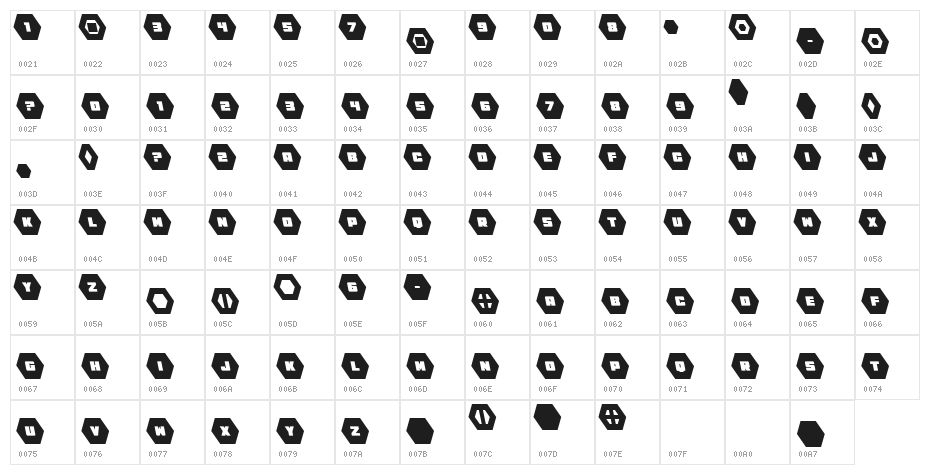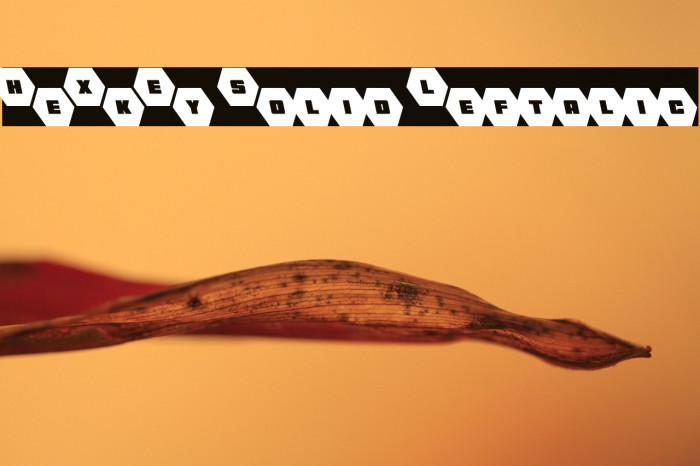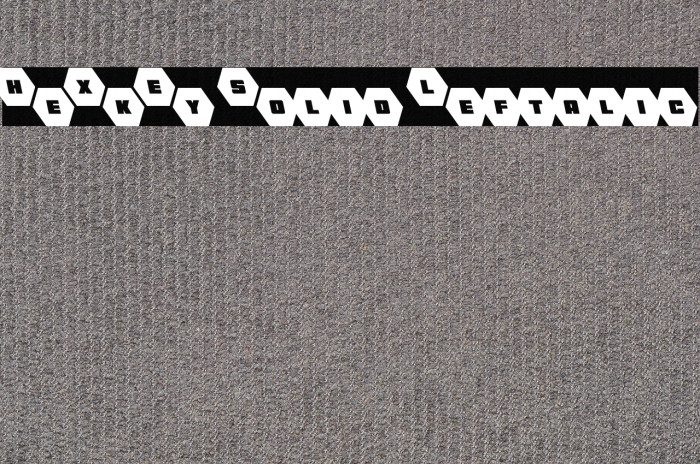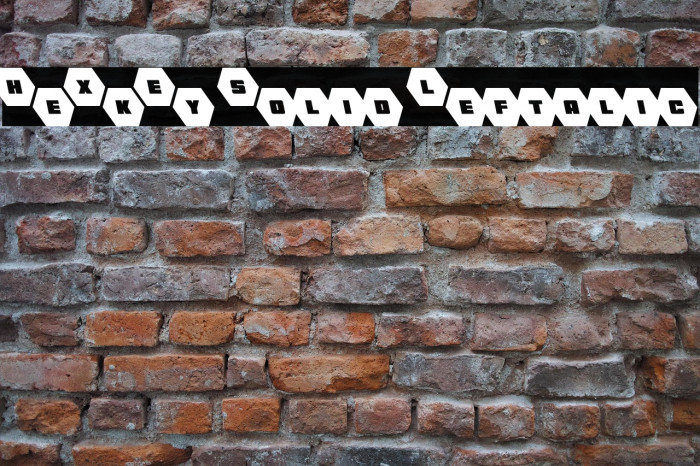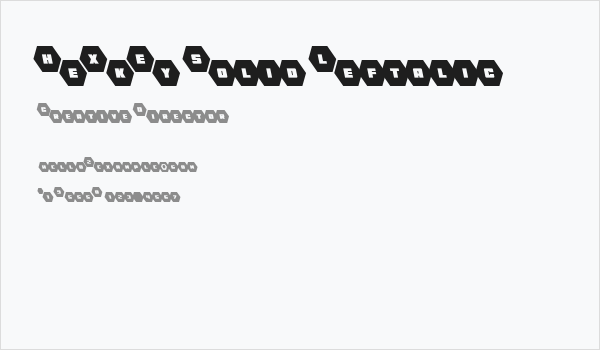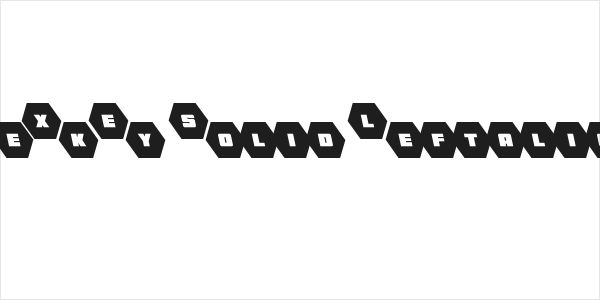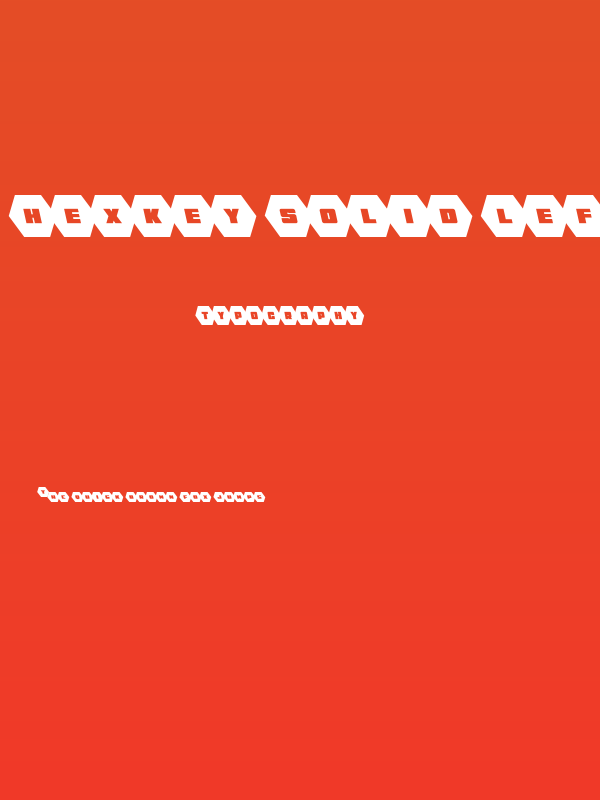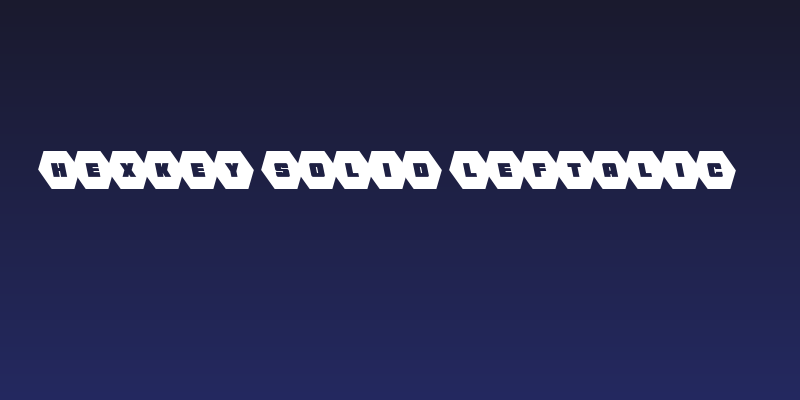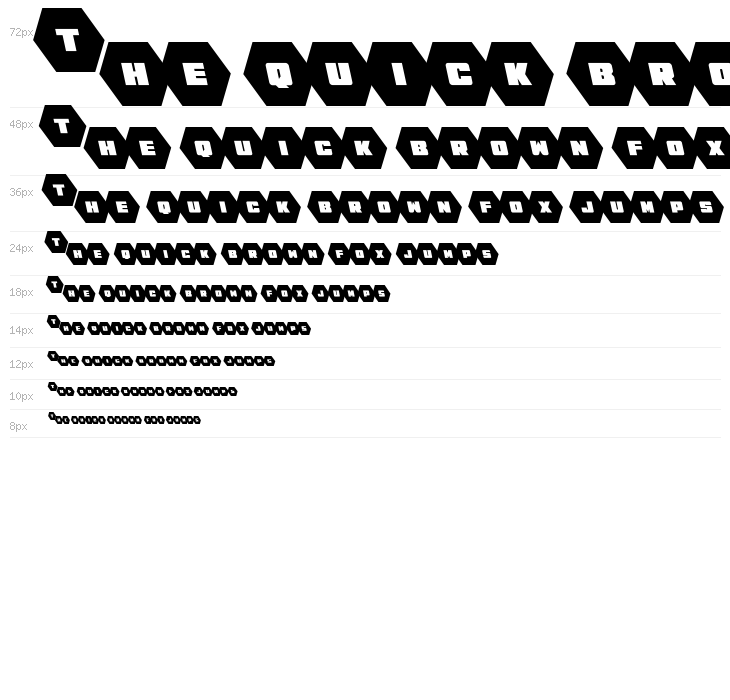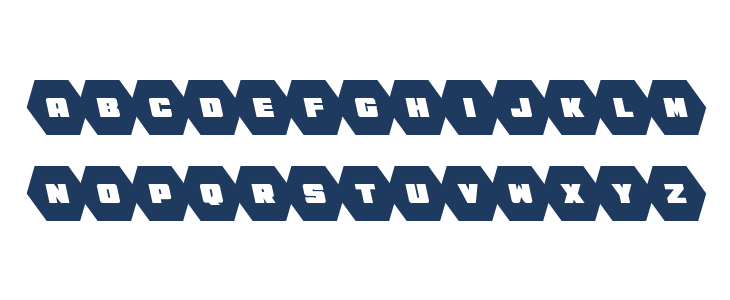
HeXkEy Solid Leftalic Font
HeXkEy Solid Leftalic Description
This font features a bold, three-dimensional design with each character enclosed in a hexagonal shape, creating a striking and futuristic appearance. The letters and numbers are solid and robust, with a left-leaning italic slant that adds a dynamic and energetic feel. The geometric style is consistent across uppercase, lowercase, and numerical characters, maintaining a cohesive look. The boldness of the font ensures high visibility, making it suitable for impactful designs. The unique hexagonal enclosure gives it a distinct and memorable character, ideal for creative and modern projects.
| Proposed Projects | Ideal for futuristic branding, video game titles, tech-themed posters, and innovative product packaging. |